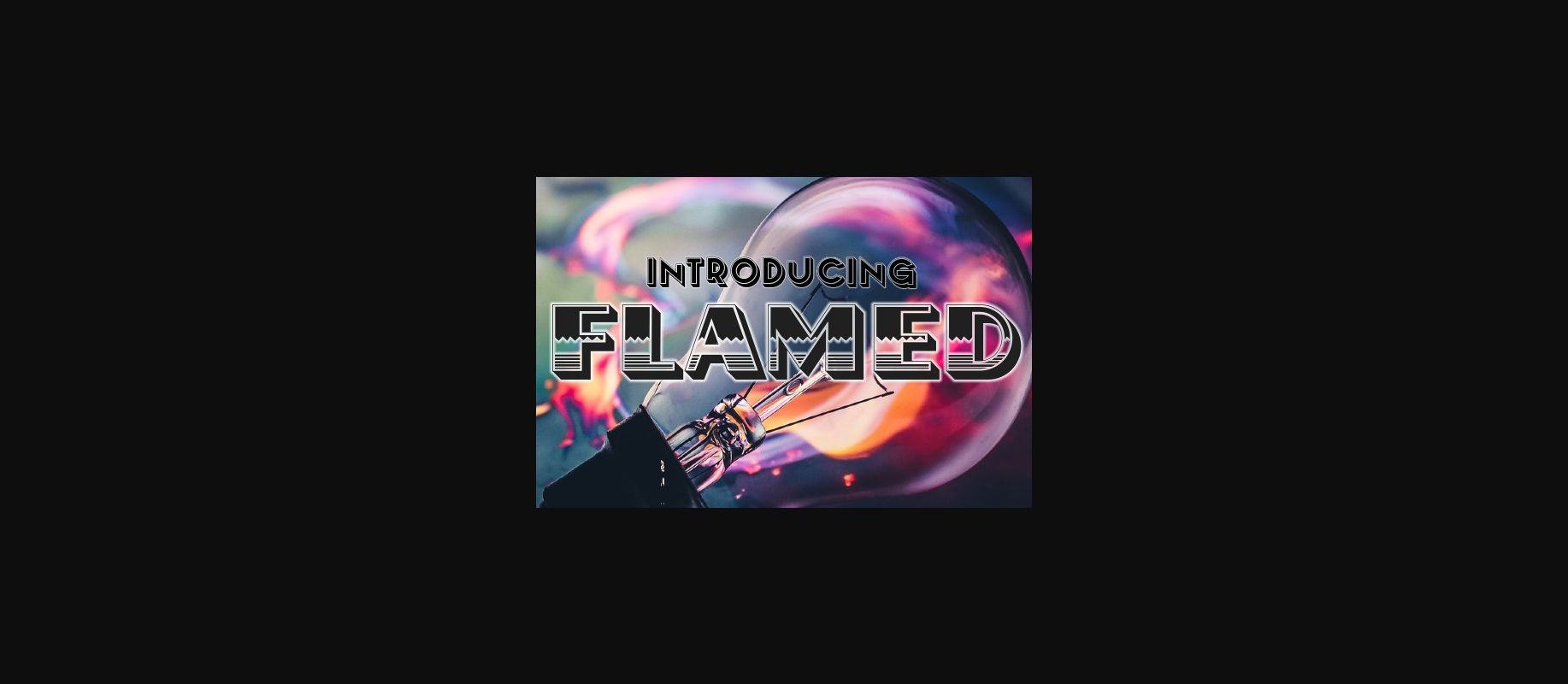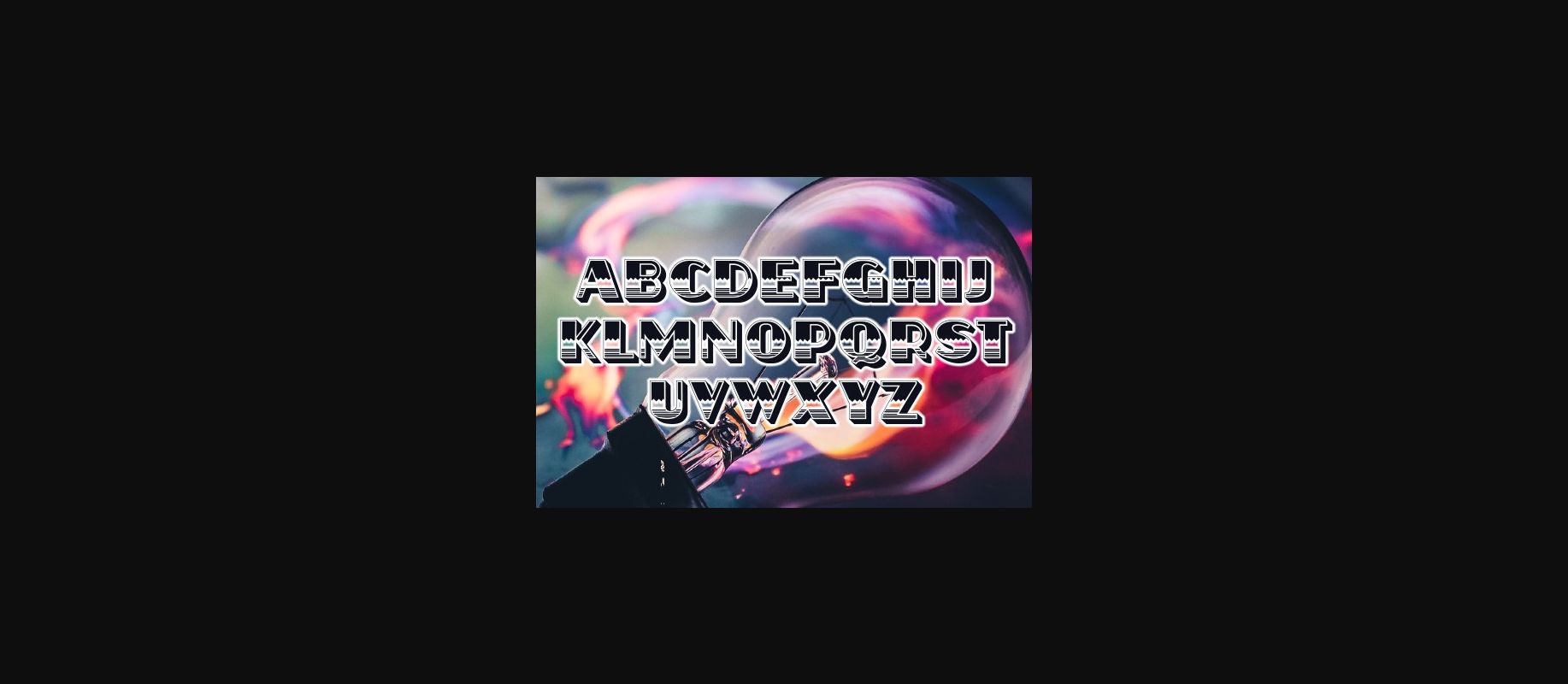
About Flamed Font
Flamed is a cool and festive decorative font. It will elevate a wide range of crafting ideas, from cards, to branding, labels and much more.